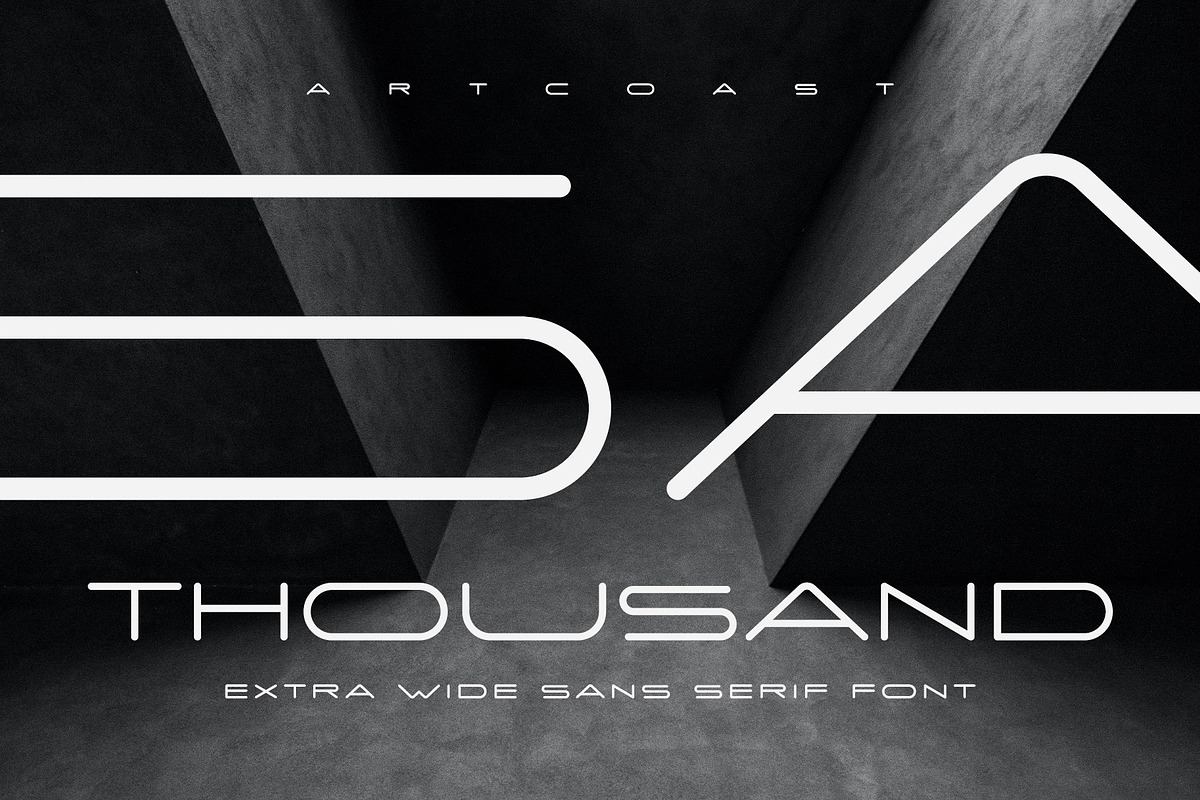
Thousand Extra Wide Sans Serif Font Free Download is a bold and striking typeface designed to make a statement with its wide, expansive letterforms. Featuring clean lines and a modern sans-serif design, this font is perfect for headlines, branding, posters, and any project that needs to command attention and stand out.
Its extra-wide structure ensures high visibility and strong impact, making it ideal for designs where legibility and presence are key. Whether you're working on a modern brand identity, creative advertising, or promotional materials, Thousand Extra Wide Sans Serif Font Free Download provides a contemporary, powerful touch to your typography.